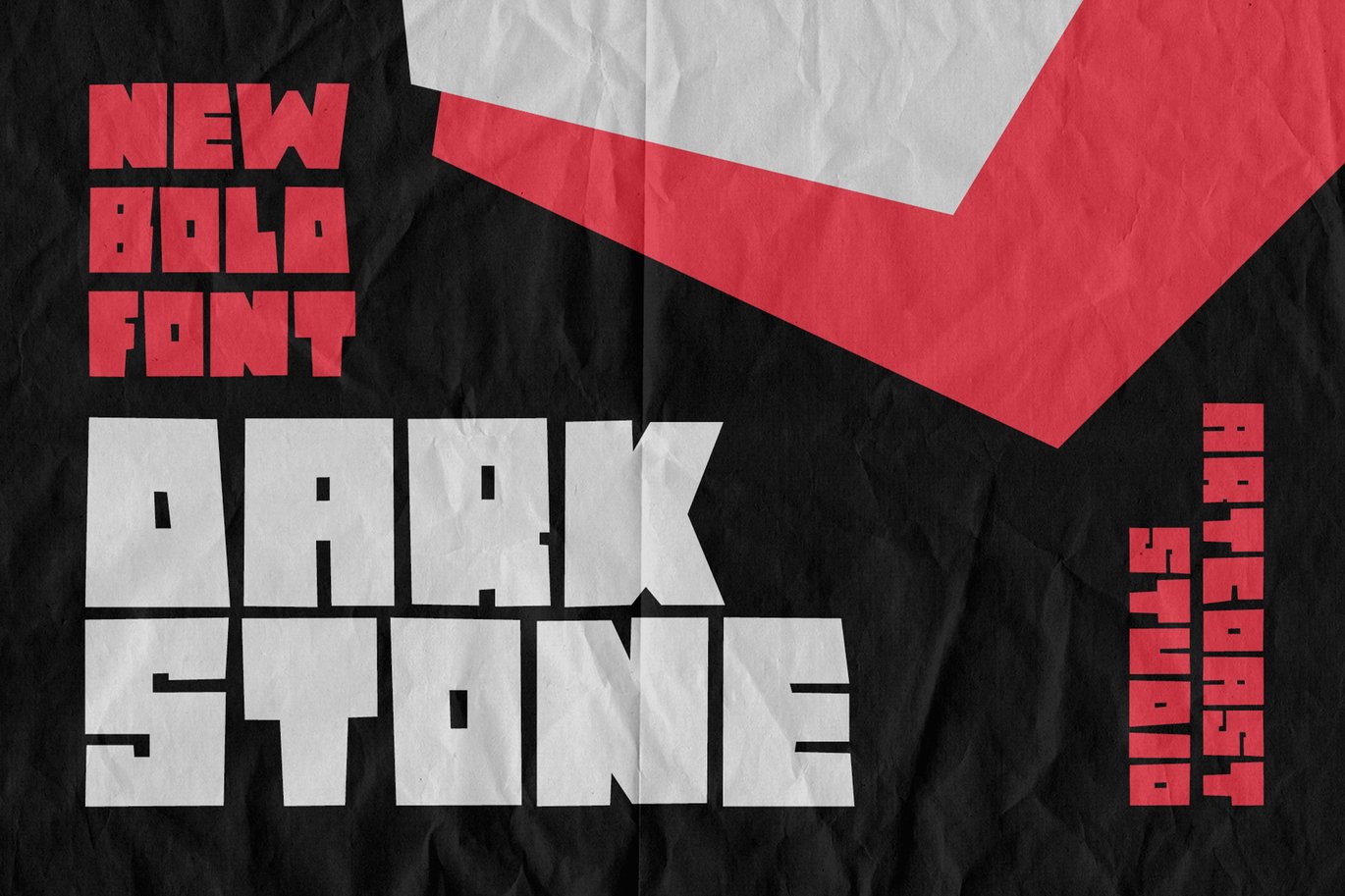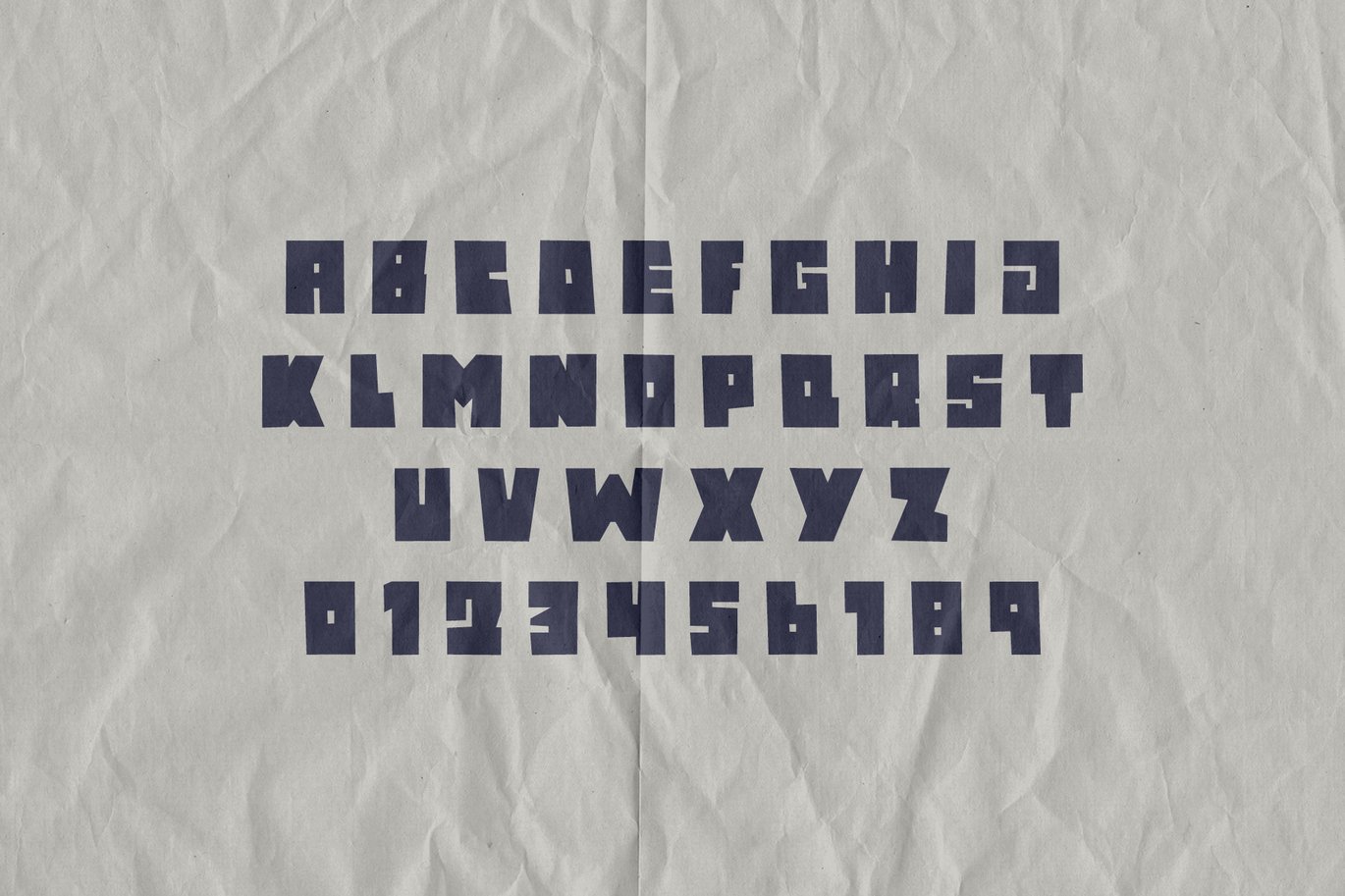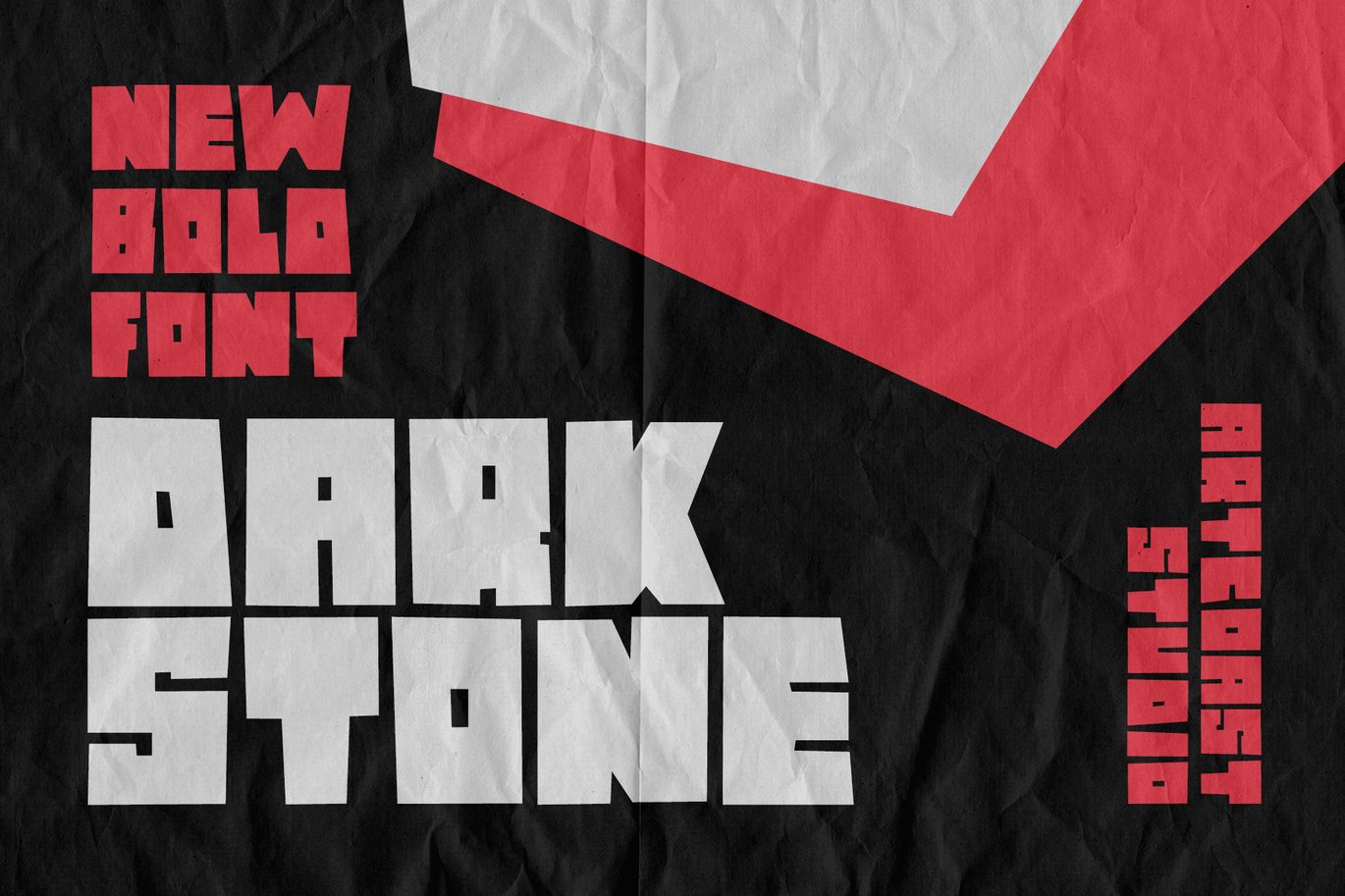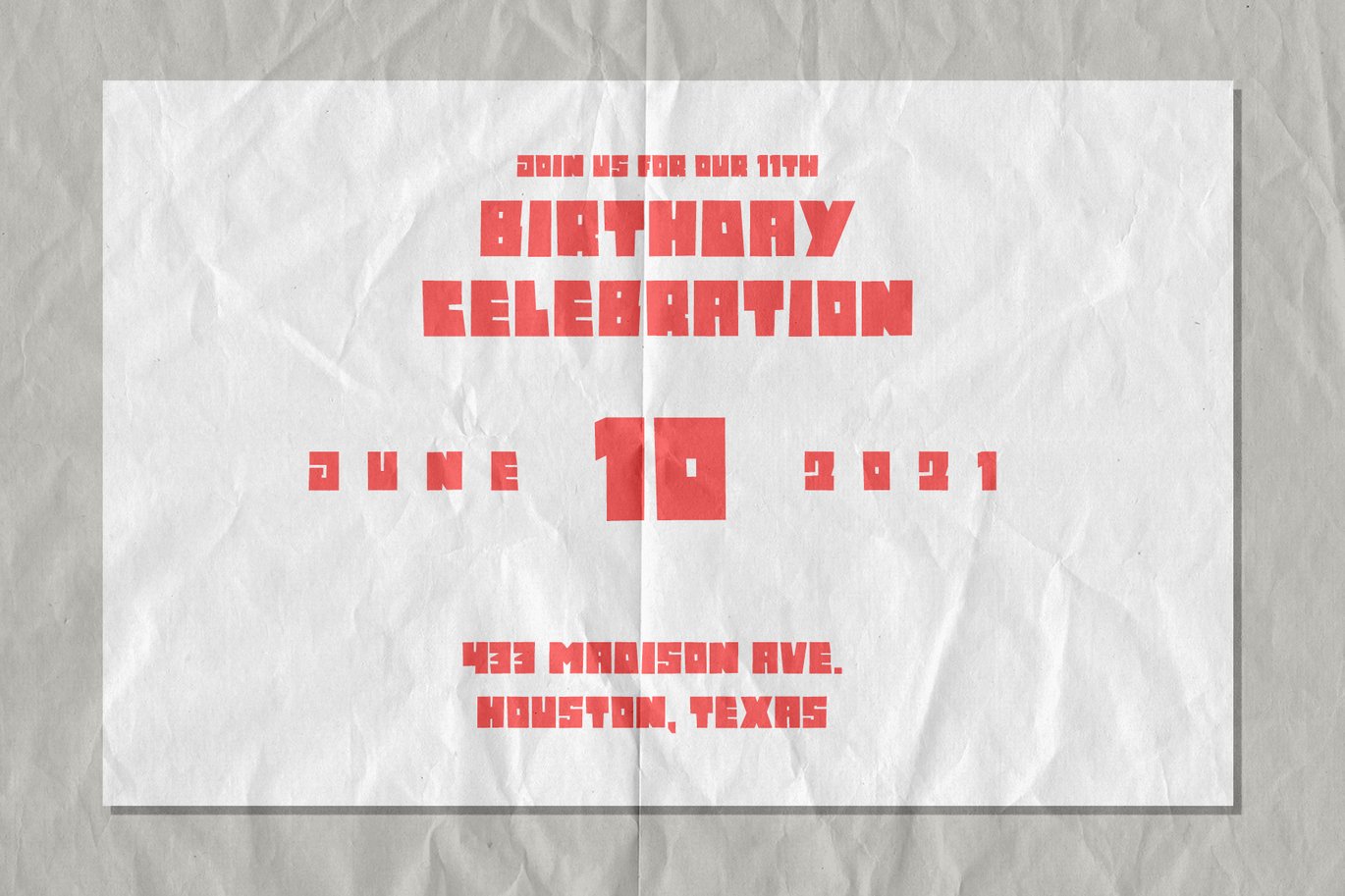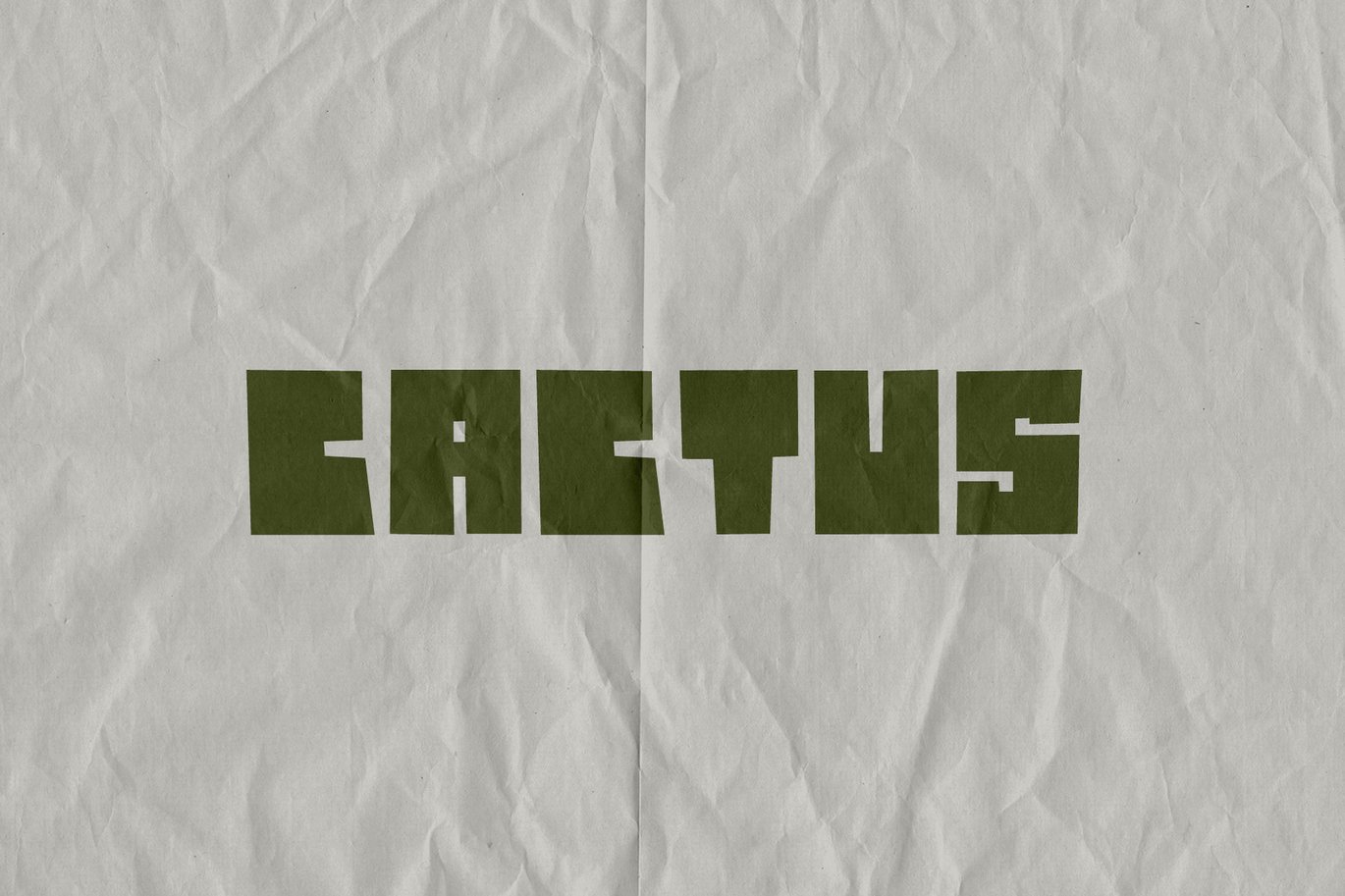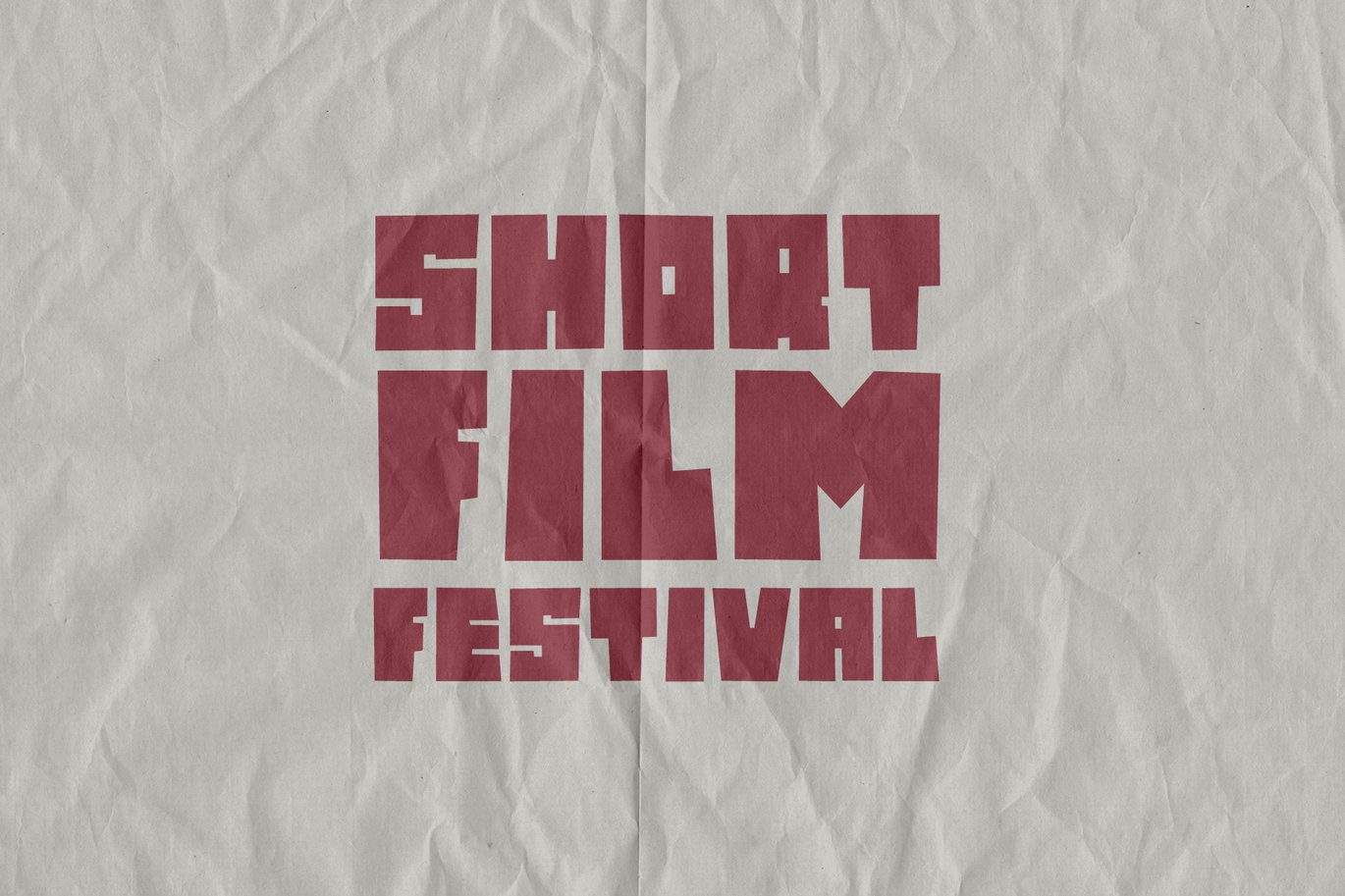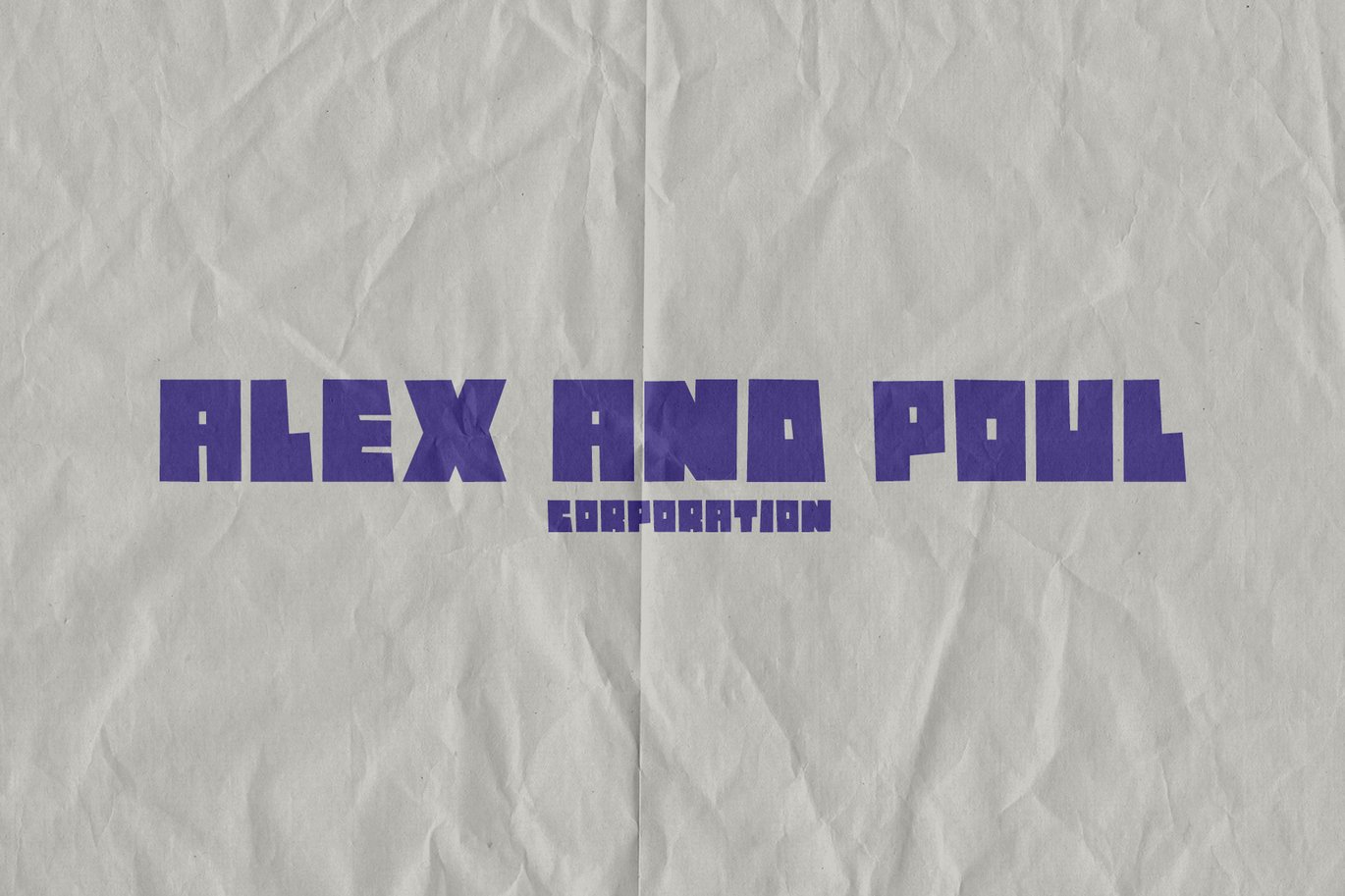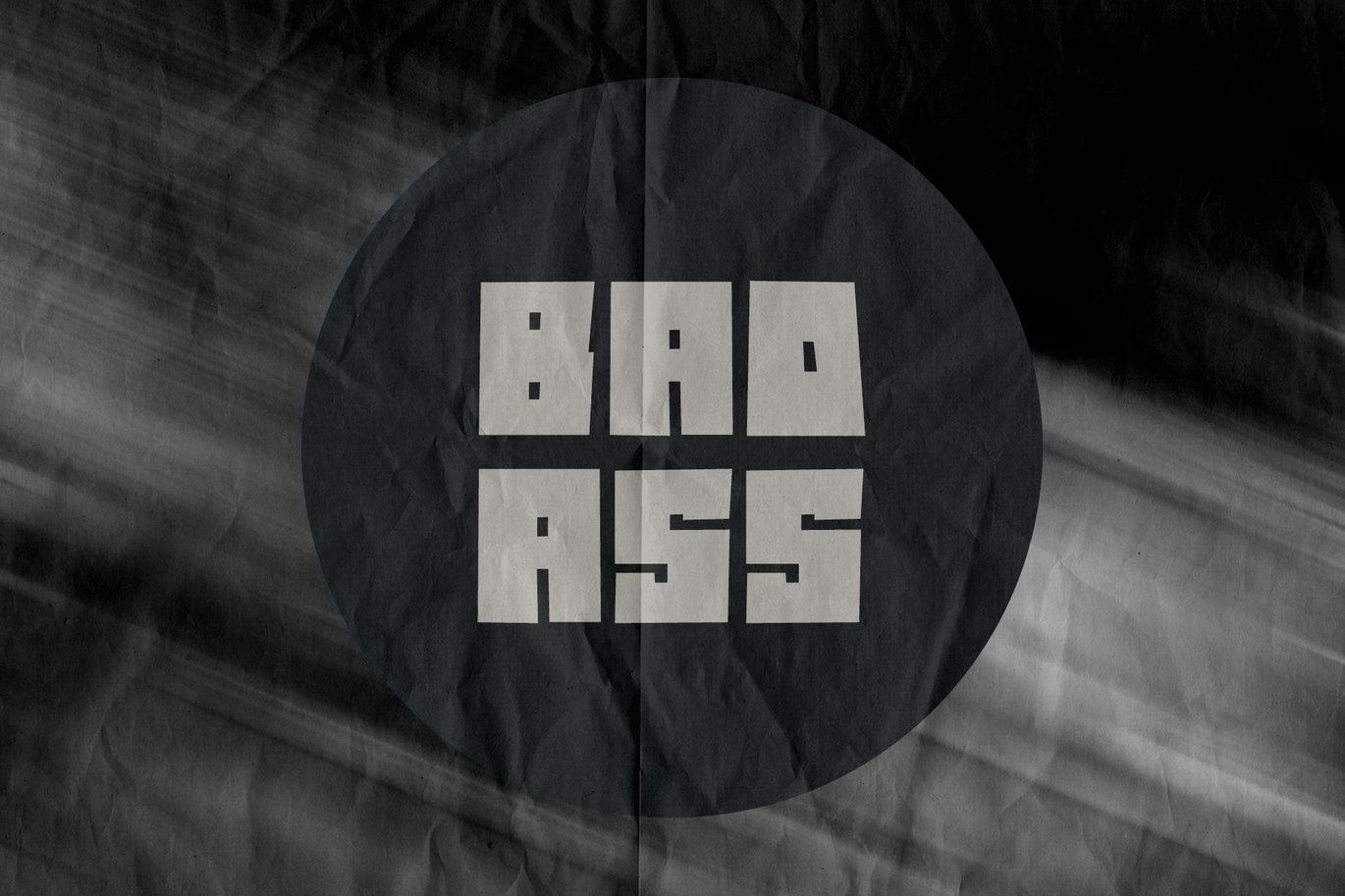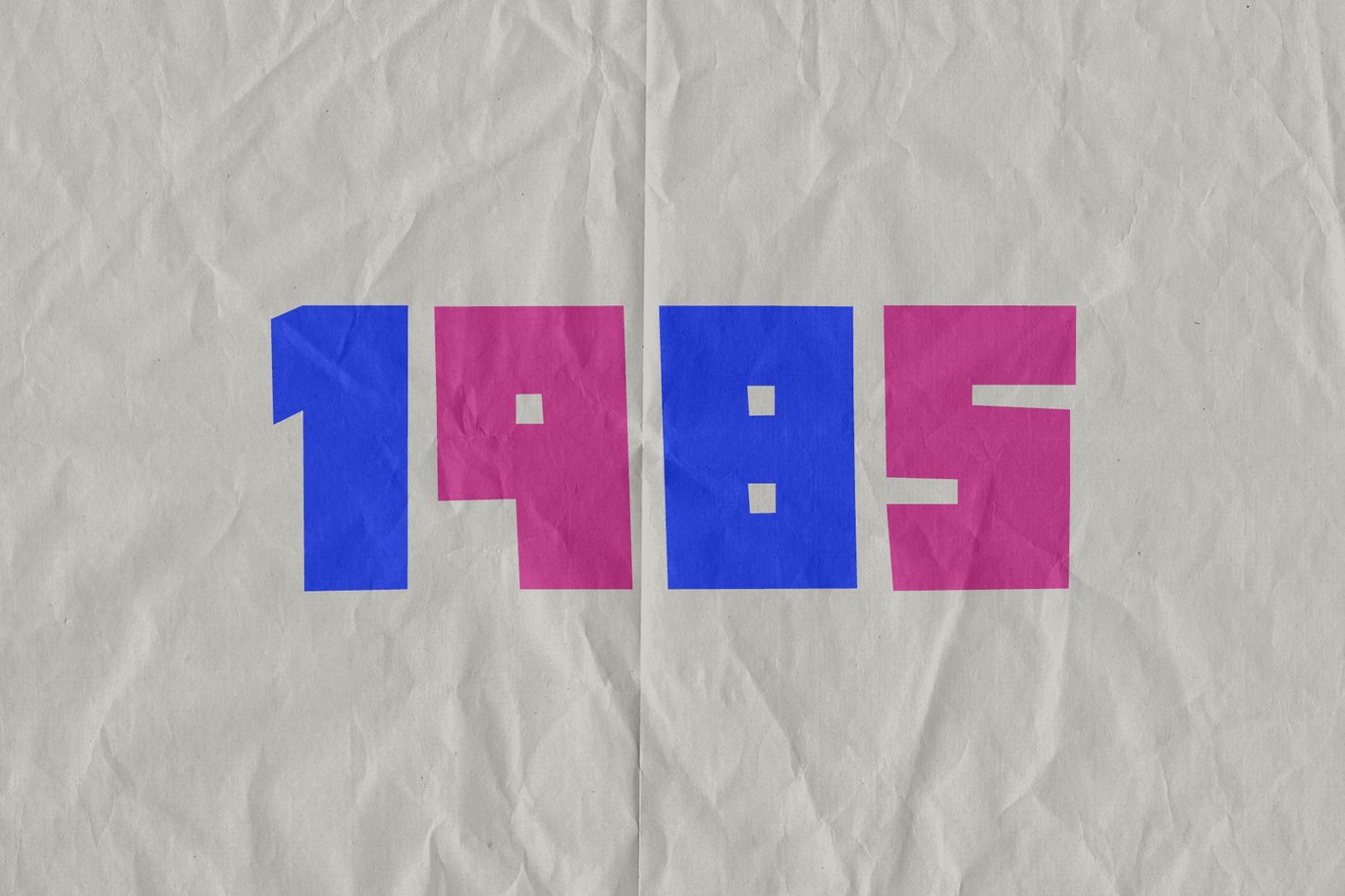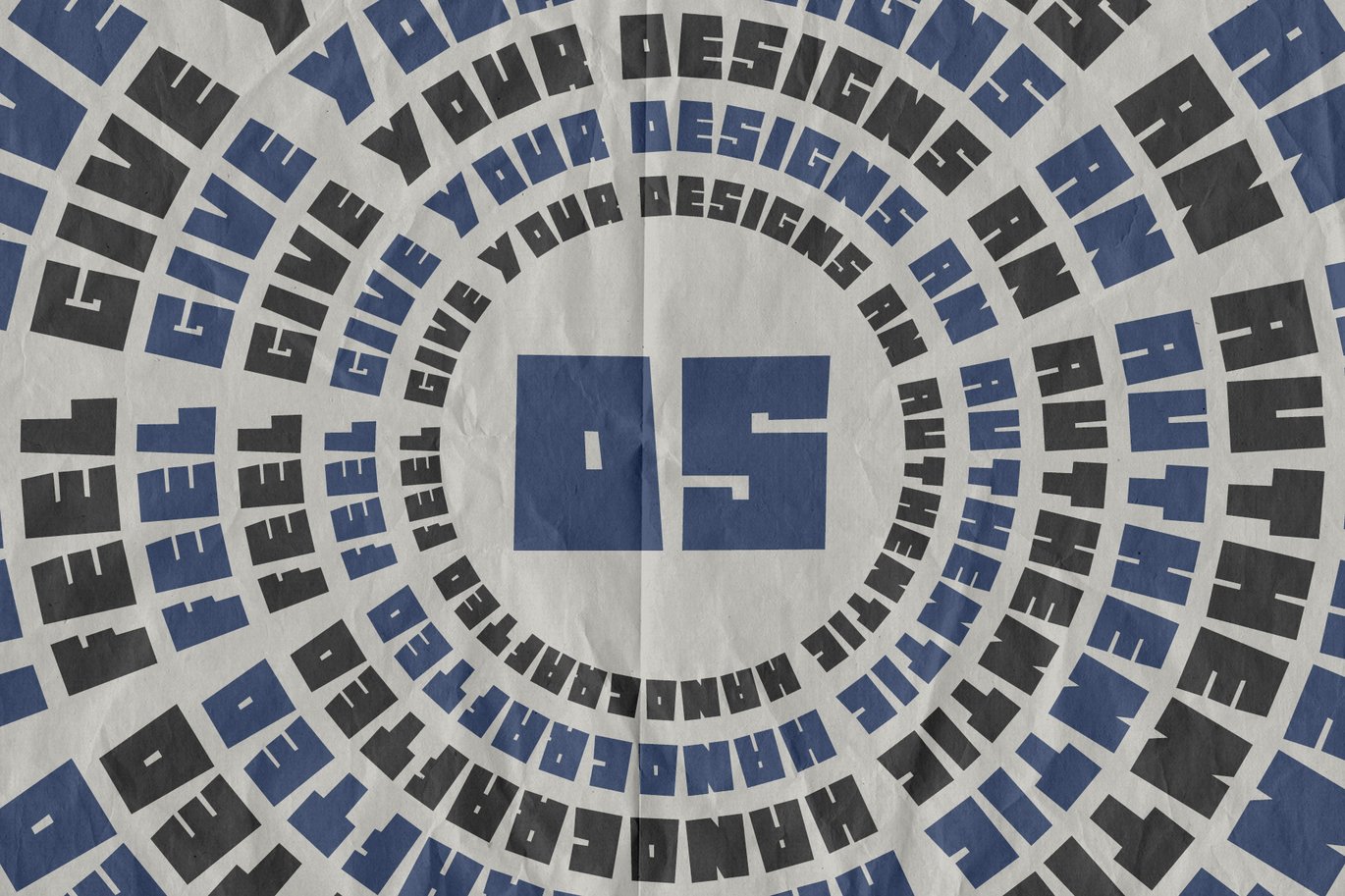
Dark Stone – Extra Bold Font
Dark Stone is an all caps sans serif typeface. It’s bold and contemporary character with hard edges is particularly suitable for headlines, headings, branding, posters, packaging, titles and logos.